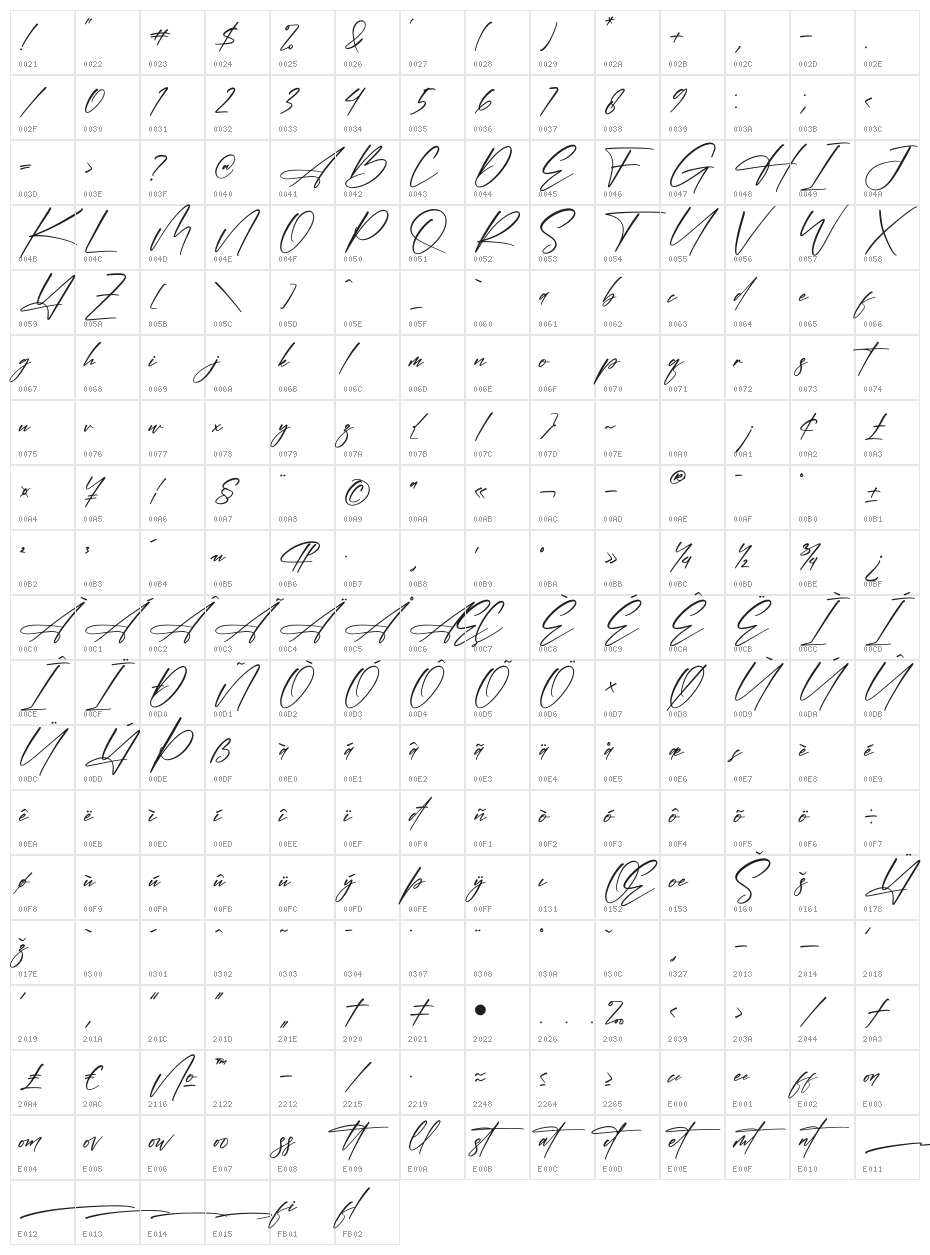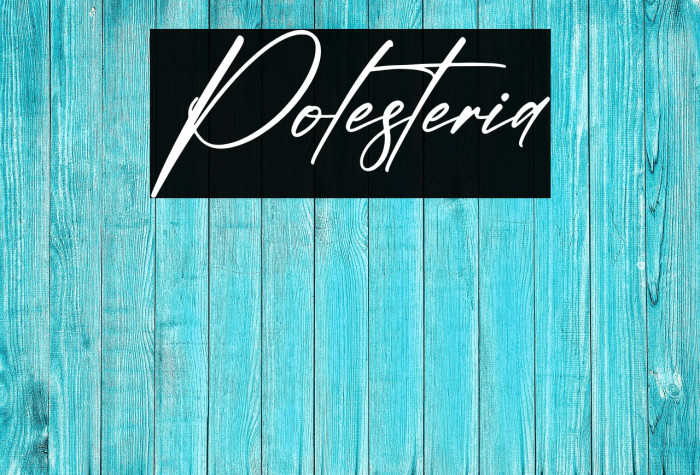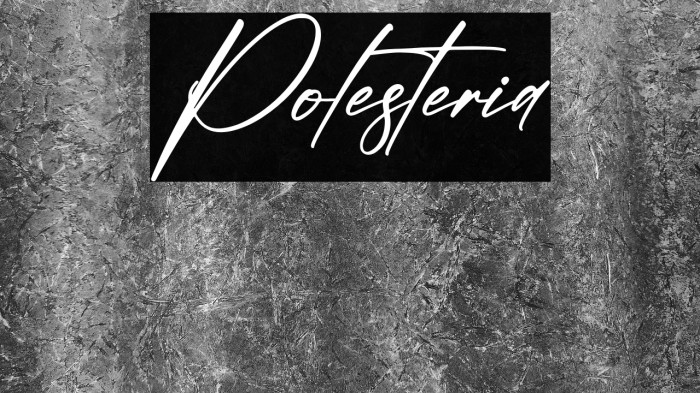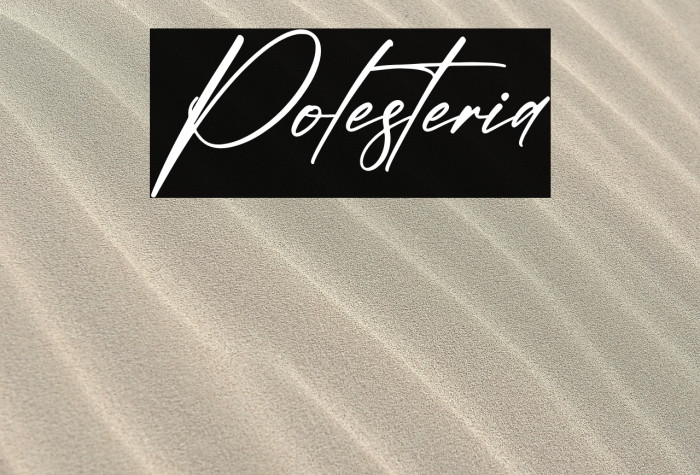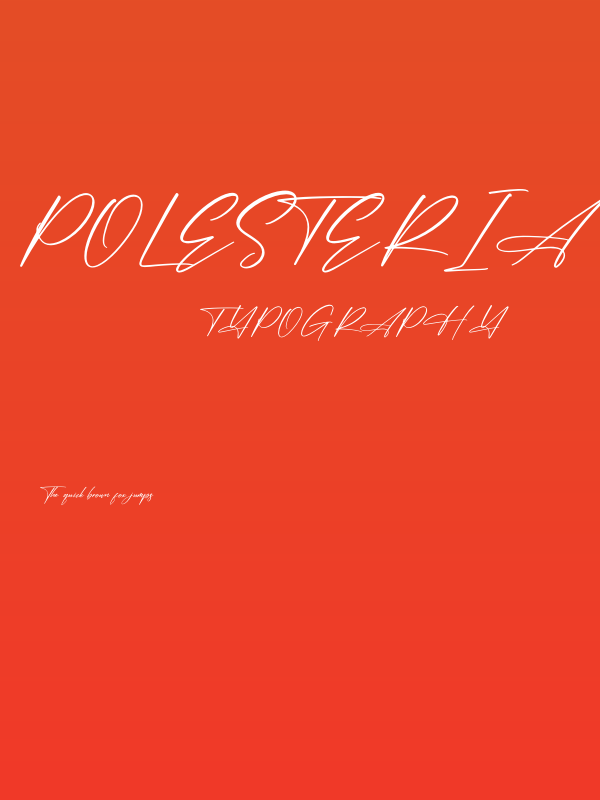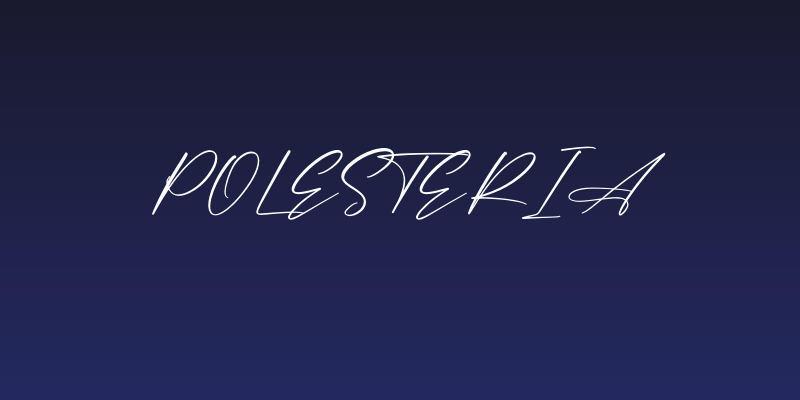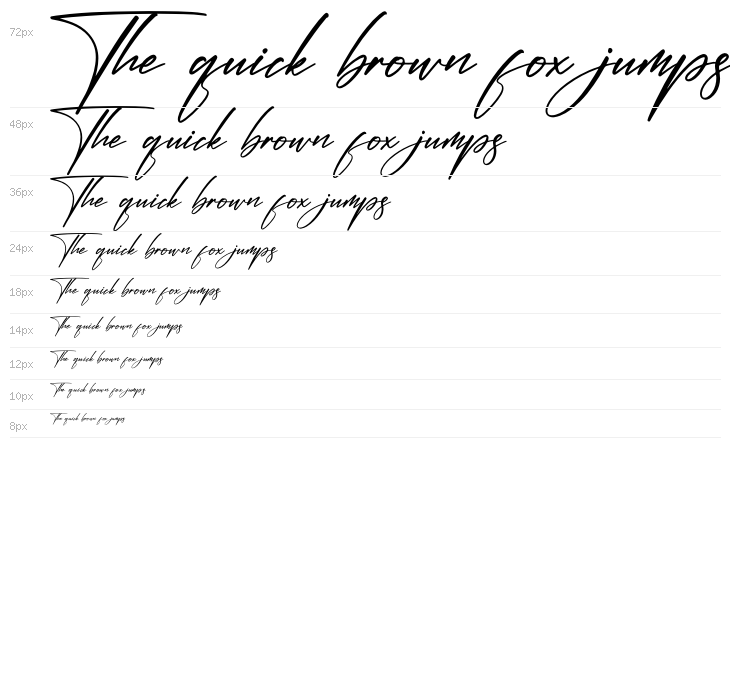
Polesteria Font
Polesteria Description
This font exudes a dynamic and fluid style, characterized by its elegant script form. The letters are connected in a flowing manner, reminiscent of traditional cursive handwriting, yet with a modern twist. The uppercase letters are slightly more angular, providing a contrast to the smoother lowercase letters. Numbers and special characters maintain the same fluidity, ensuring consistency across all elements. The strokes are varied in thickness, adding a sense of movement and energy to the text. This font is perfect for projects that require a personal touch, such as invitations, greeting cards, or branding materials that aim to convey sophistication and creativity.
| Use Case | Logos, Headlines, Decorative text |
| Proposed Projects | Ideal for invitations, greeting cards, personal branding, and creative projects. |